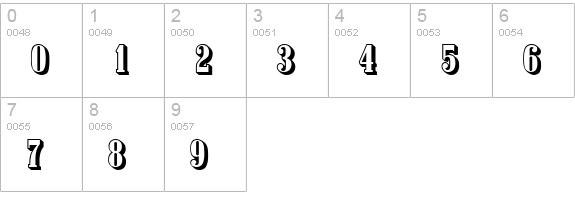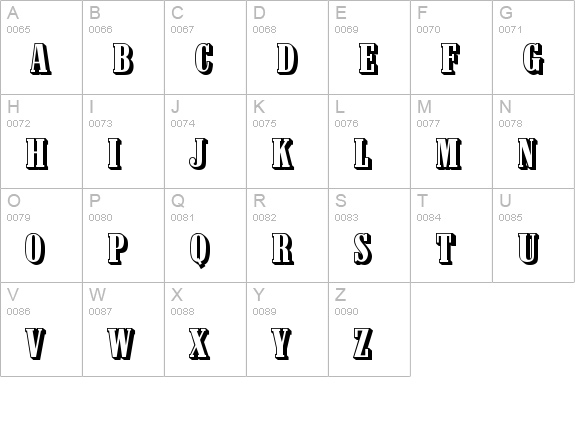
Saloon font is a charming and versatile typeface that exudes a classic Western vibe with a modern twist. Its bold and rugged appearance is reminiscent of vintage saloon signs, making it the perfect choice for projects that require a touch of rustic flair. With its unique character and eye-catching design, Saloon font is sure to make your designs stand out. Best of all, Saloon font is available for free download at FontsMarket.com. Whether you're working on a poster, logo, or any other creative project, this font will add a touch of old-world charm and style. Don't miss out on this fantastic opportunity to elevate your designs with the timeless appeal of Saloon font. Download it today and start creating stunning visuals that make a lasting impression.